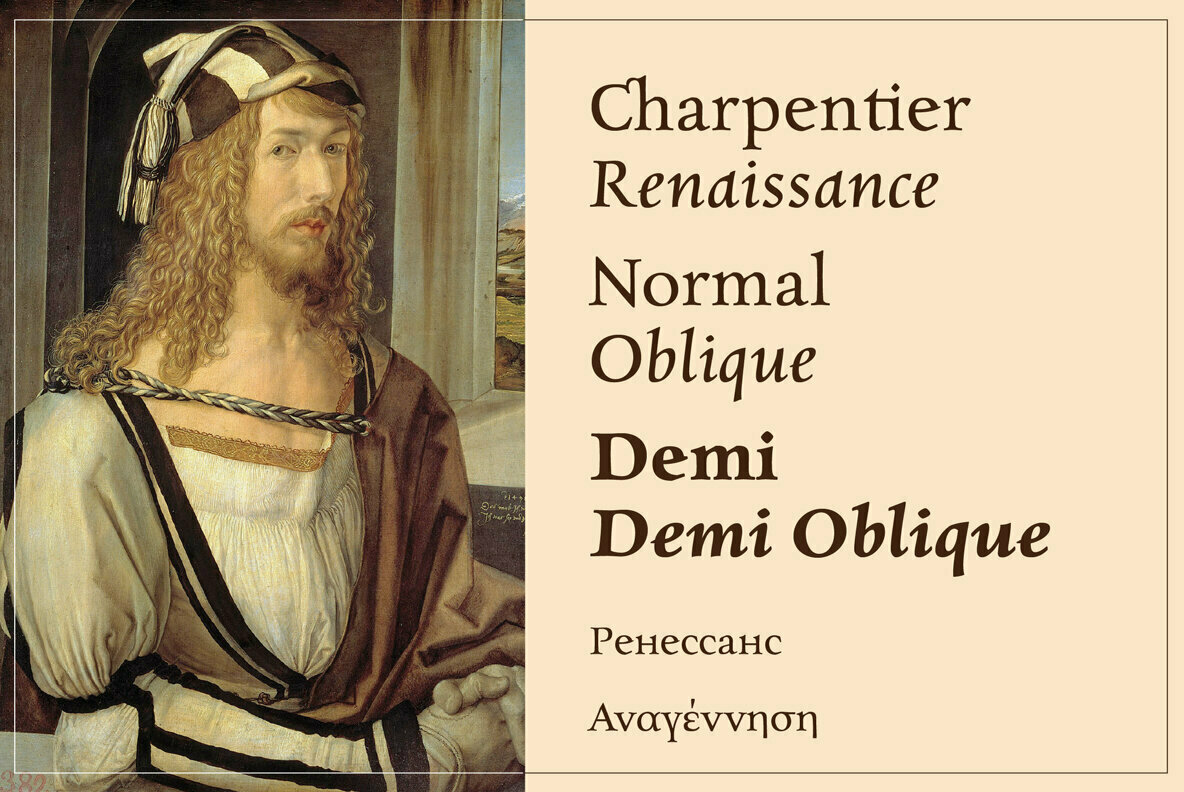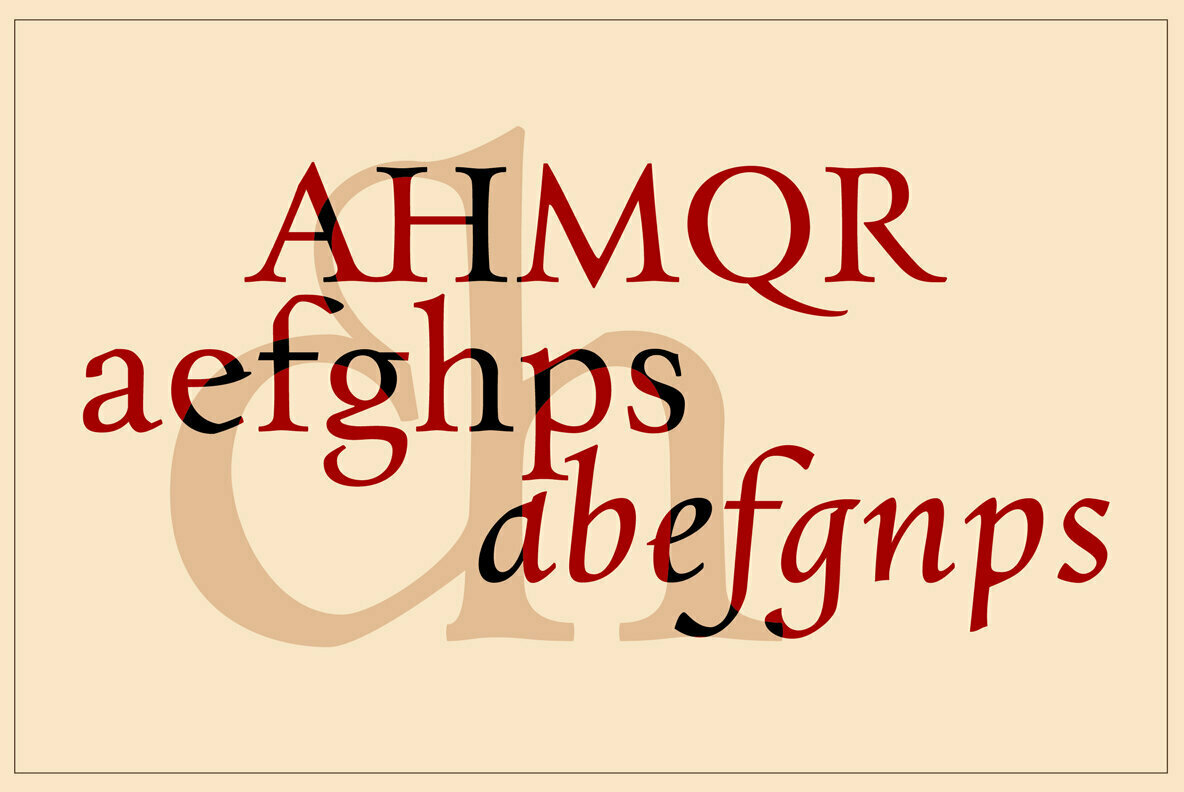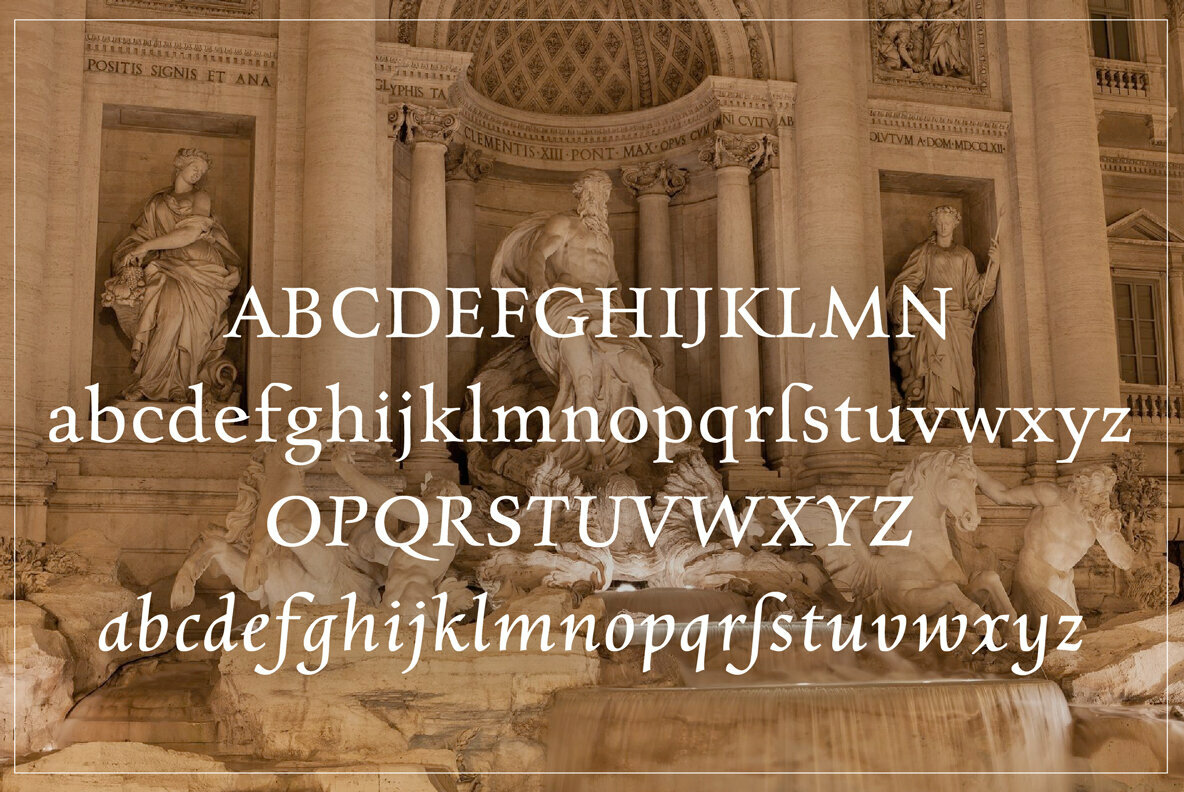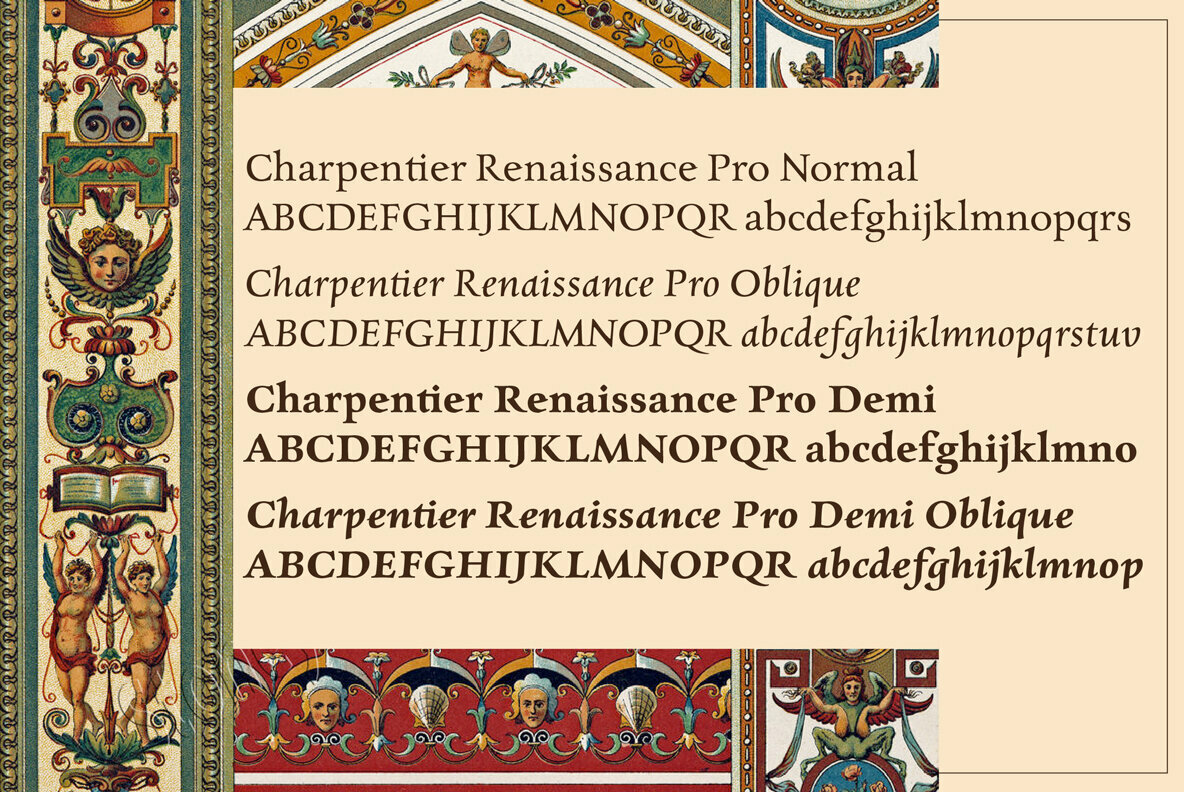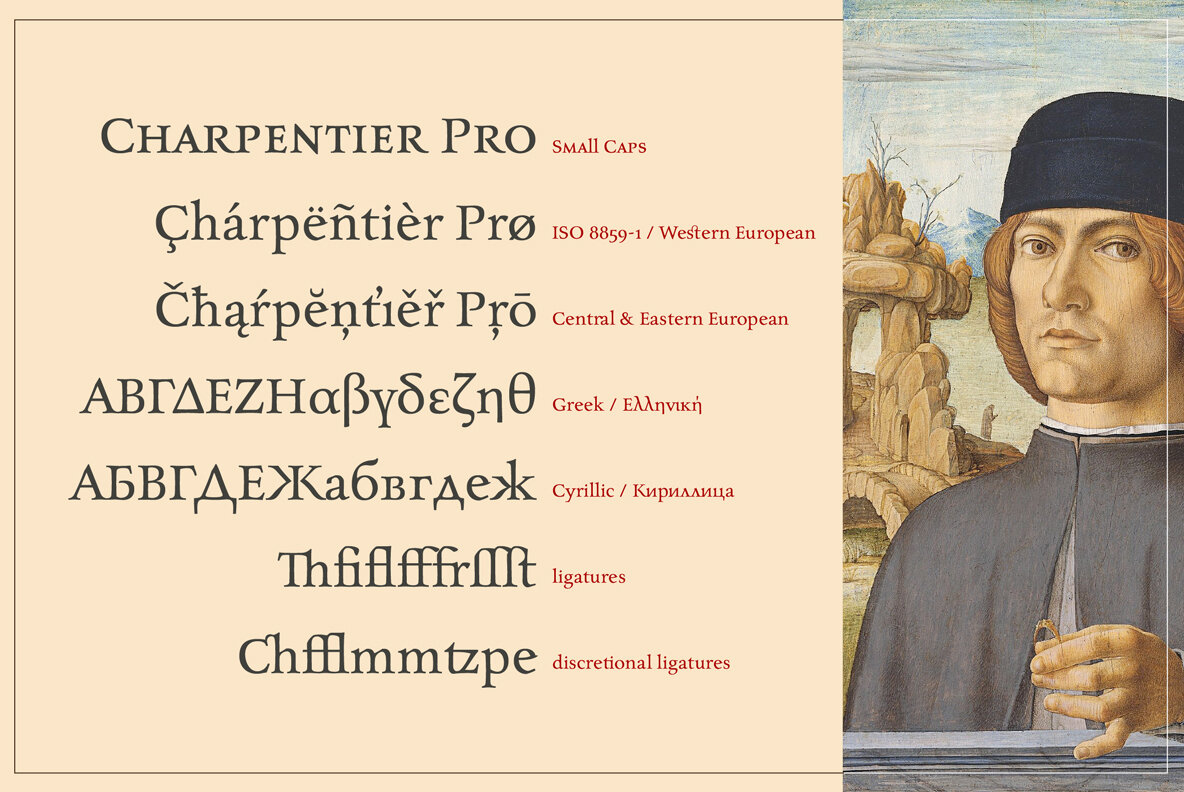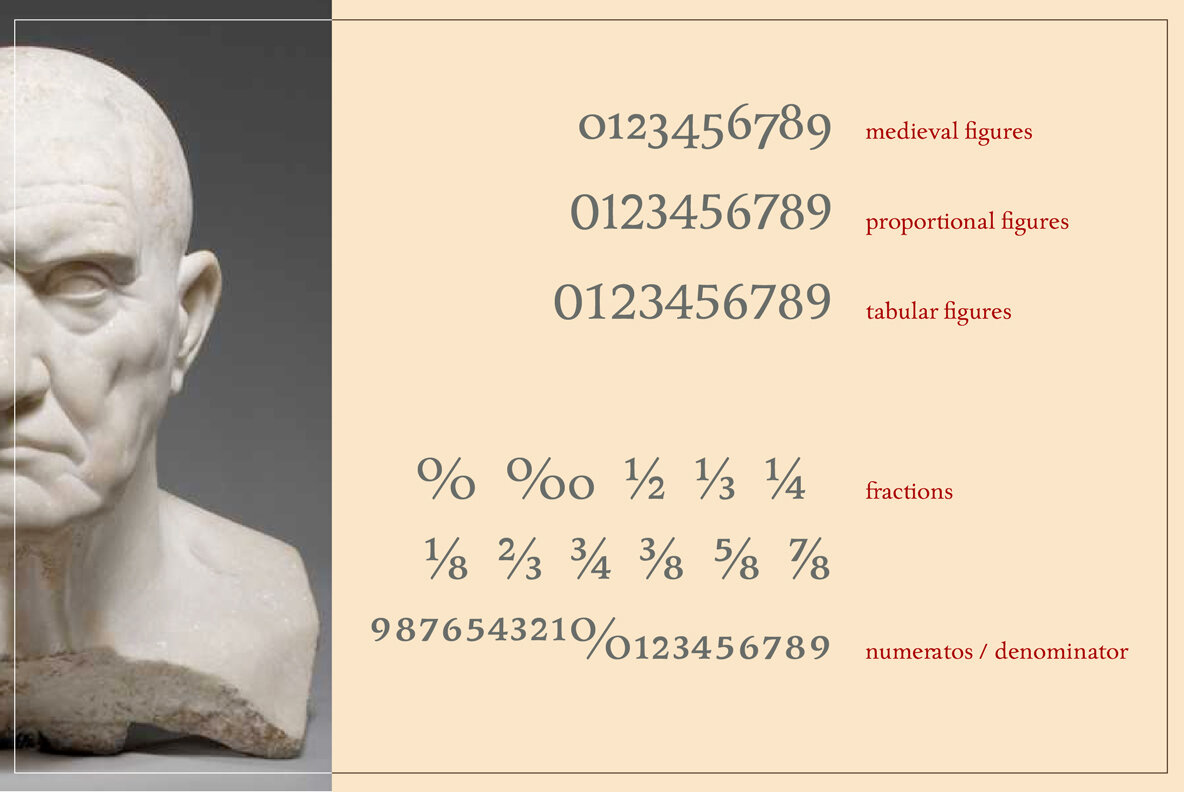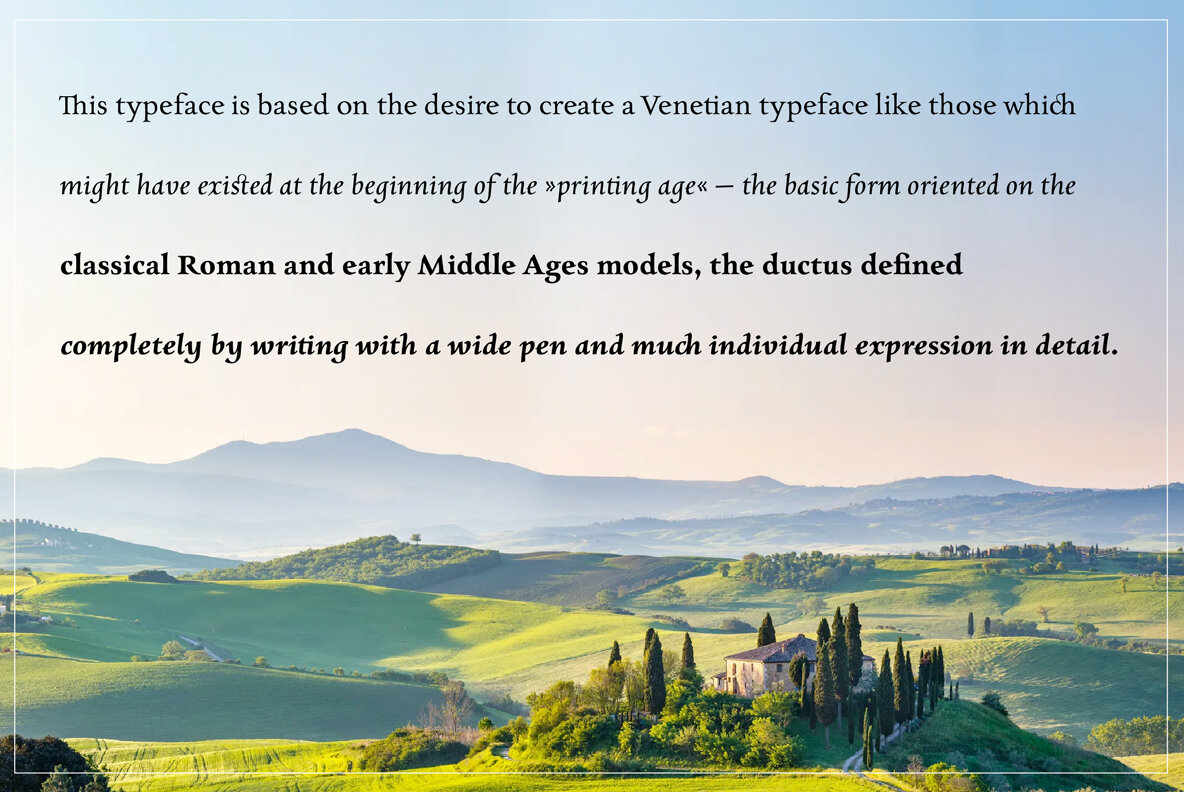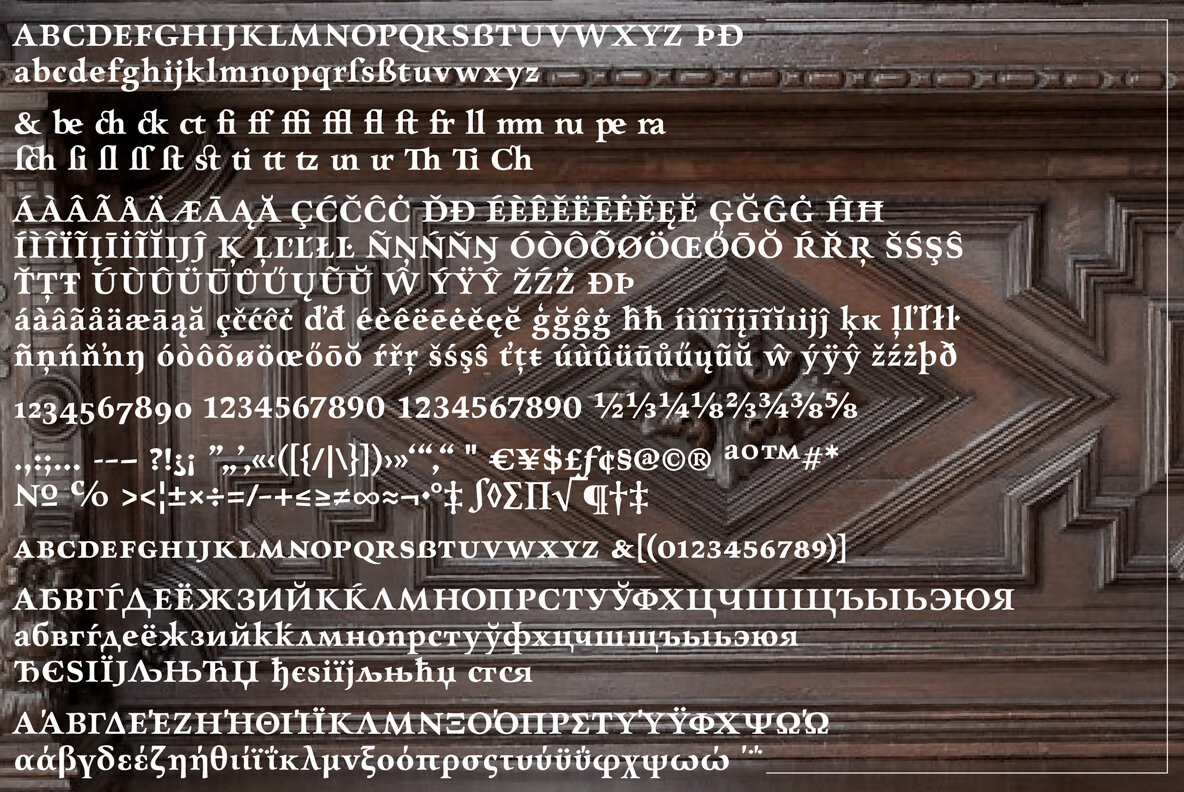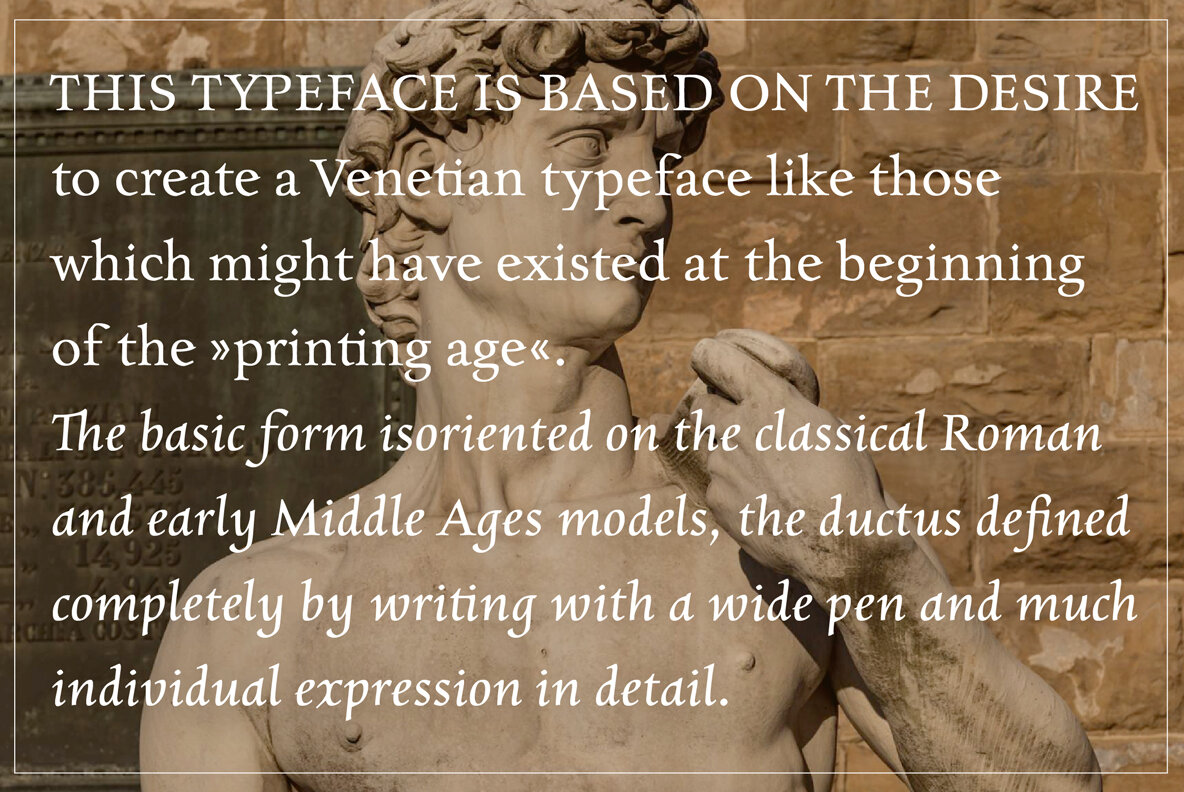
Charpentier Renaissance Pro Font
A very legible Venetian Roman typeface
This typeface is based on the desire to create a Venetian typeface like those which might have existed at the beginning of the »printing age« — the basic form oriented on the classical Roman and early Middle Ages models, the ductus defined completely by writing with a wide pen and much individual expression in detail.
In the spring of 2005 I had the opportunity to closely examine a few pages in the famous book »Hypnerotomachia Poliphili« from 1499. The script used here from Aldus Manutius is exemplary. Most of the book, however, is not very carefully printed. The characters do not stay on the line; the print is at times too strong and at times much too weak.
And on these imperfect pages the true character of the letters is recognizable; that is, that they are cut with lively detail which is a result of the patterns provided by full-time writers. After all, around 1499 script was written as a rule and the printed type was oriented on this pattern.
I prefer the typeface on the lightly printed pages. The characters are not placed neatly on the line, but the distinct and emerging lively ductus of the individual characters automatically presents harmonious word formations in the eye of the beholder, with the non-perfect line stepping into the background.
Also in Charpentier Renaissance, the strokes of the wide pen are still noticeable. The font has very defined softly bent serifs. The forms are powerful and stand solidly on the baseline.
Charpentier Renaissance is very legible and yields a solid and yet still lively line formation.
The accompanying italic, like its historical models, has almost no inclination. The lower case characters of Charpentier Renaissance Italique have such idiosyncratic figures that they can also form a font of their own.